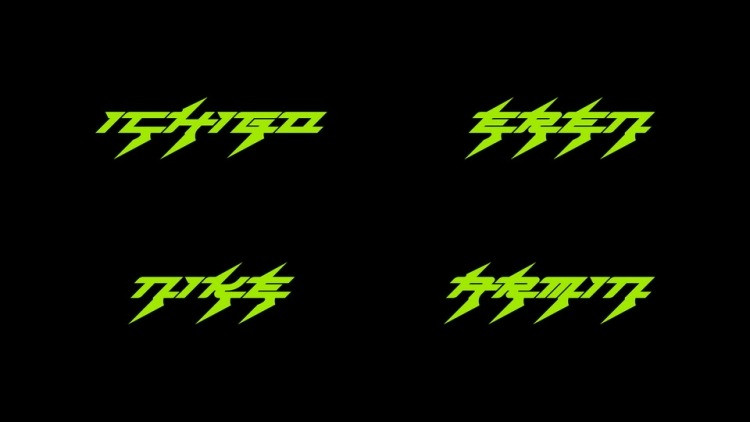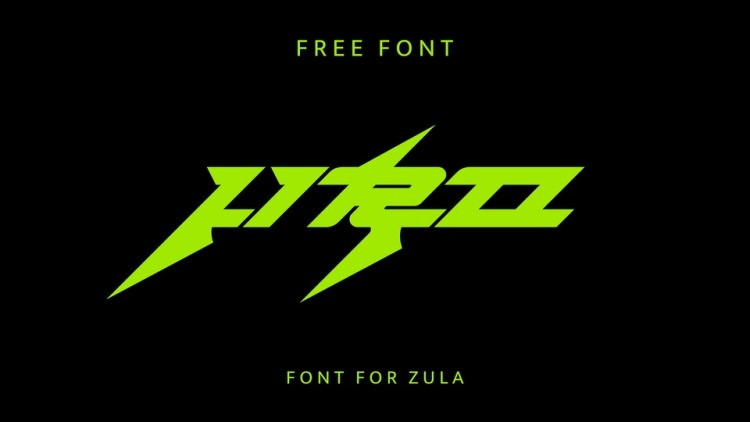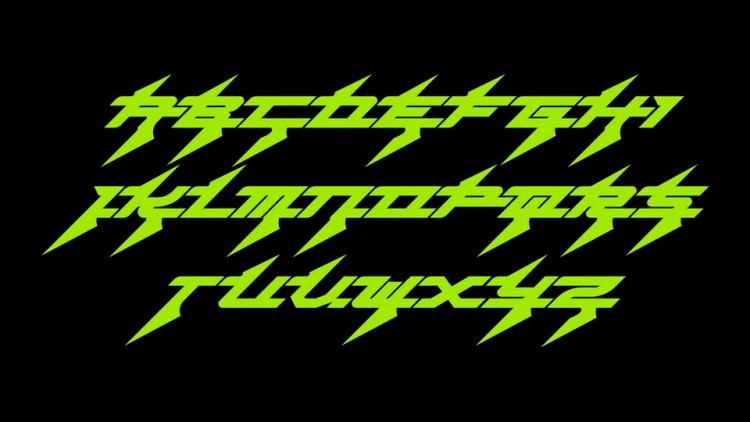
Jiro Display Free Font by Font For Zula, is a bold and dynamic display typeface full of energy. The font is perfect for logos, posters, games and movie titles.
Jiro Font